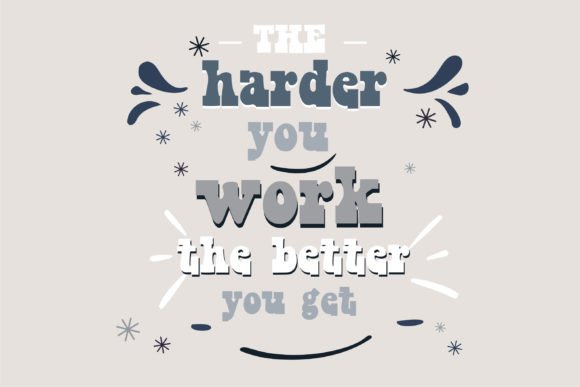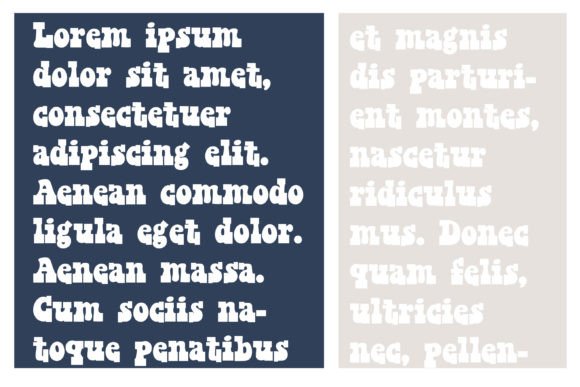
Introduction to Boogie Box Font
Boogie Box is an incredibly unique display font.
Masterfully designed to become a true favorite, this font has the potential to bring each of your creative ideas to the highest level .
Why Choose Boogie Box Font?
Boogie Box Font offers exceptional quality and versatility, making it a valuable addition to your design toolkit. Whether you’re creating for personal projects or commercial use, Boogie Box Font delivers professional results.